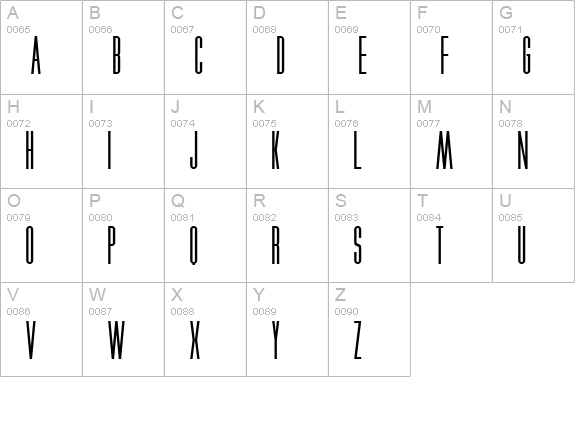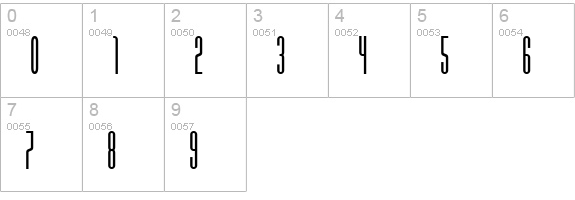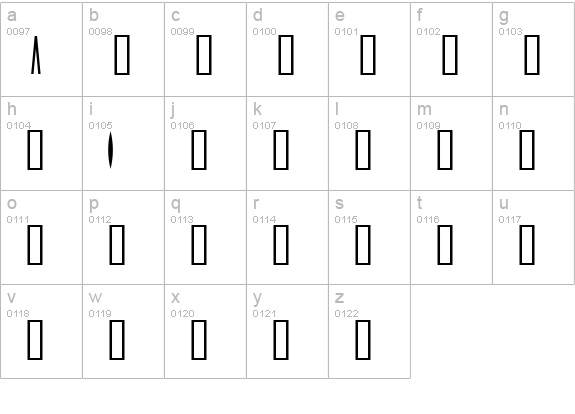
Xenophobia Nominal font is a sleek and modern typeface that exudes sophistication and elegance. With its clean lines and sharp angles, this font is perfect for creating eye-catching designs that demand attention. The geometric shapes and precise letterforms of Xenophobia Nominal give it a unique and distinctive look that sets it apart from other fonts. What makes Xenophobia Nominal font even more appealing is that it is free to download at FontsMarket.com. Yes, you read that right - you can get your hands on this stunning font without spending a dime. Whether you're working on a personal project or a professional design, Xenophobia Nominal font is a versatile choice that will elevate your work to the next level. Don't miss out on the opportunity to add Xenophobia Nominal font to your font library. Download it for free at FontsMarket.com today and let your creativity shine with this exceptional typeface.